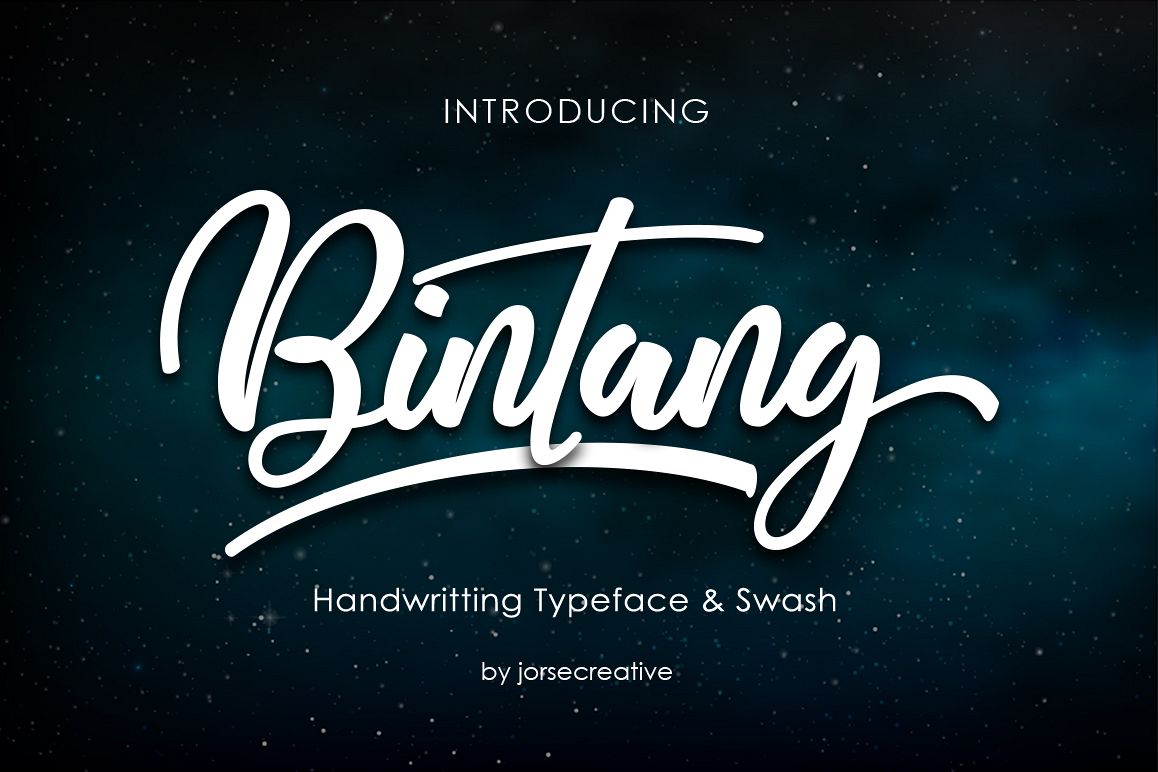
Bintang
Bintang Font Swash
Bintang
Introducing !
The Bintang of ' the beautiful script abrush Fonts and unique, it is a model of modern calligraphy typography in combination with calligraphy writing style. Star Font consists of 433 glyphs, including alternative spellings with 1 choice of Alternative WHOLESALE SWASH and Alternative options including seven lowercase terminal elect and early letters, ligatures, alternate, and multiple language support.
The features of this font is:
• STANDARD UPERCASE
• STANDARD LOWERCASE
• SWASH
• STYLISTIC ALTERNATIVES LOWERCASE
• INITIAL & TERMINAL ALTERNATIVE
• STANDARD LIGATURES
• DISCRETIONARY LIGATUR